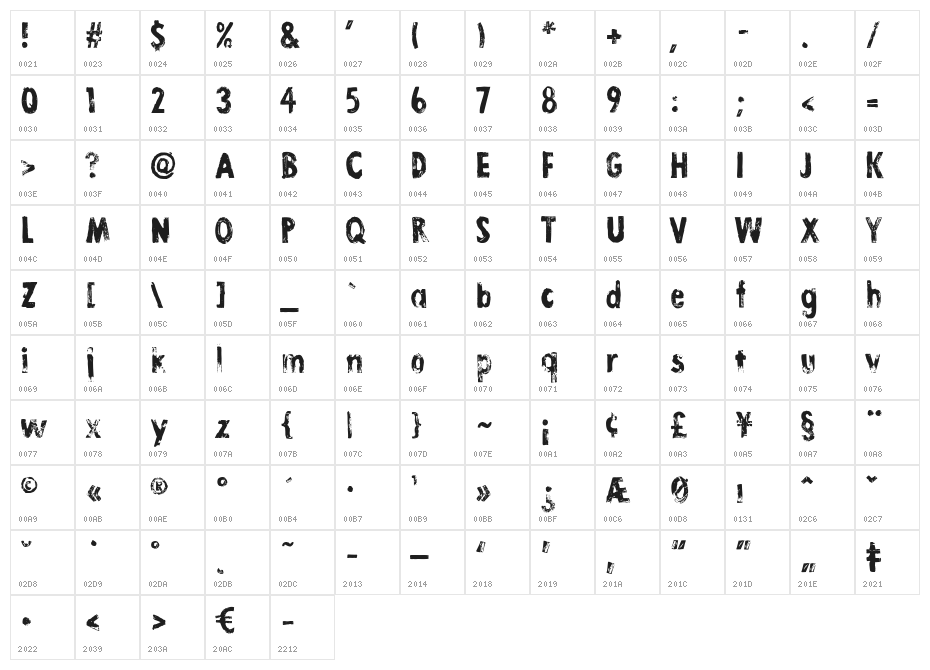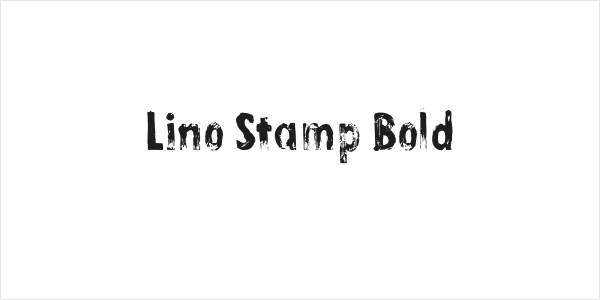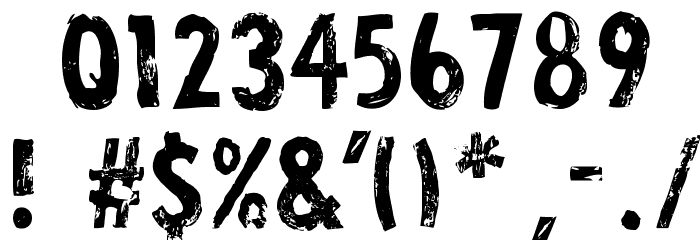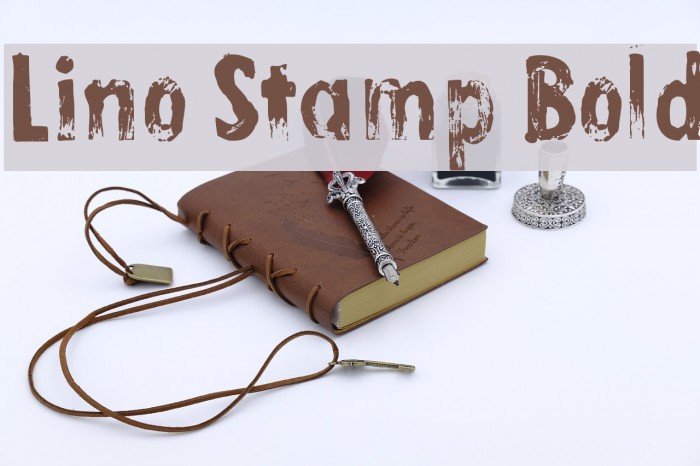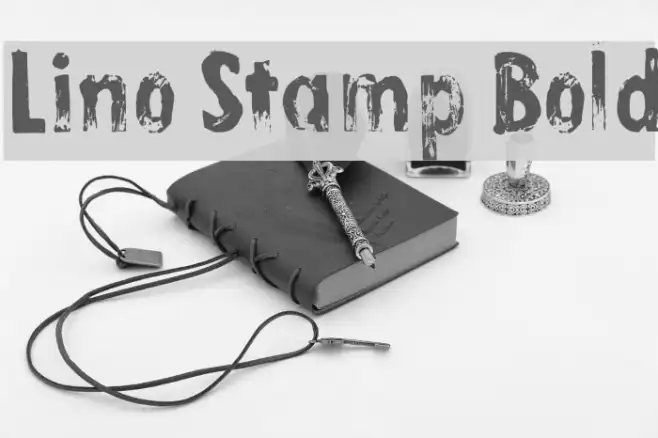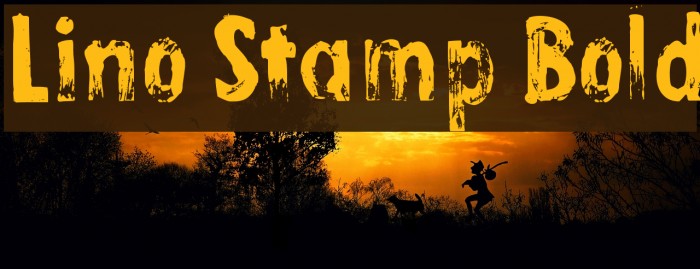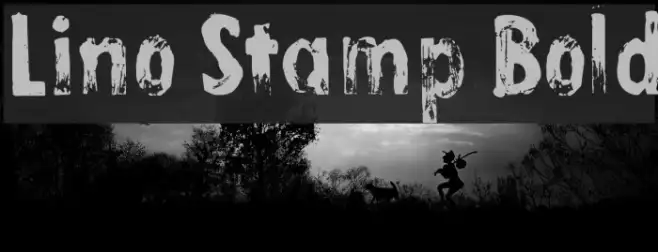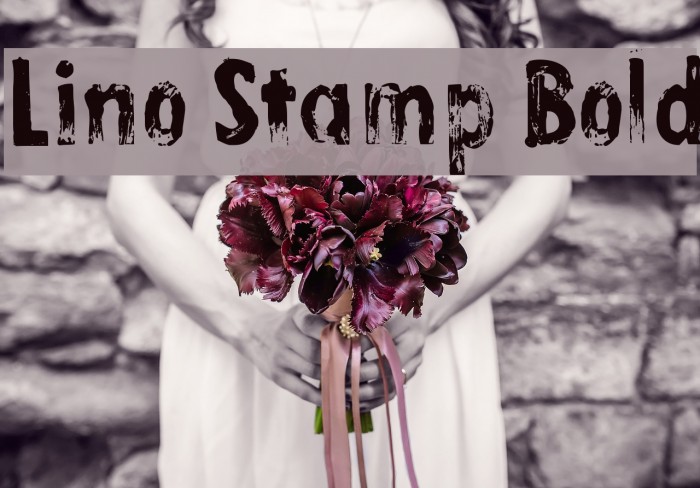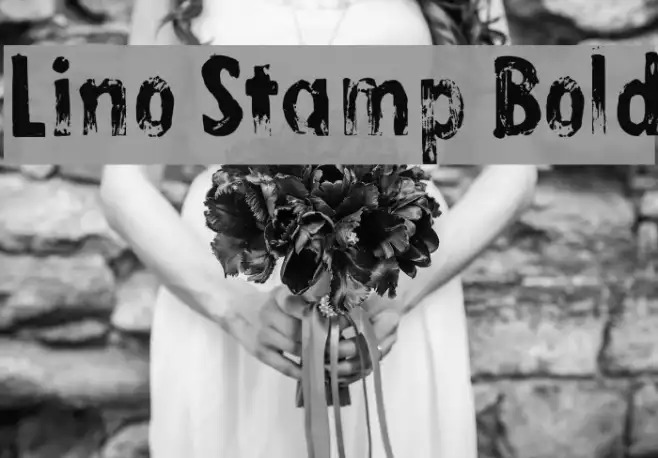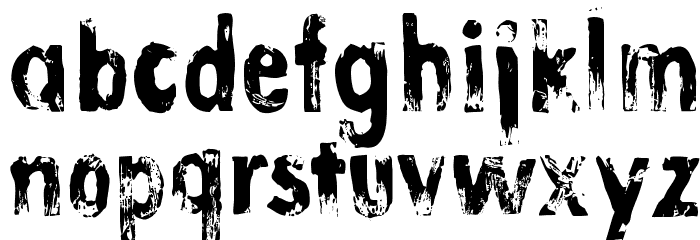
Lino Stamp Bold Font
Lino Stamp Bold Description
This font exhibits a bold, distressed style reminiscent of traditional linocut prints. The characters are rugged and textured, giving them a handmade, artistic appearance. The uppercase and lowercase letters maintain a consistent weight, while the numbers and special characters follow the same distressed aesthetic. This font's unique style makes it ideal for projects that require a rustic or vintage feel. The rough edges and uneven texture add character and depth, making it stand out in any design.
| Overall Style | Vintage |
| Proposed Projects | Ideal for posters, album covers, branding, and any design needing a vintage or artistic touch. |